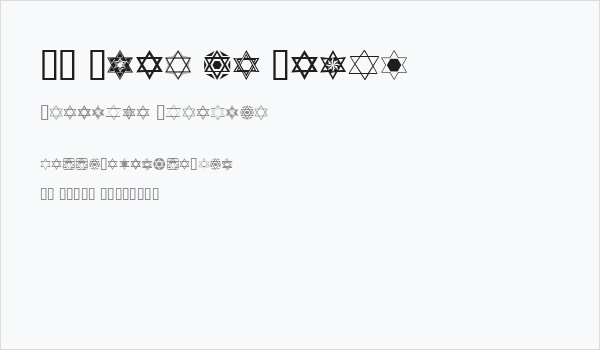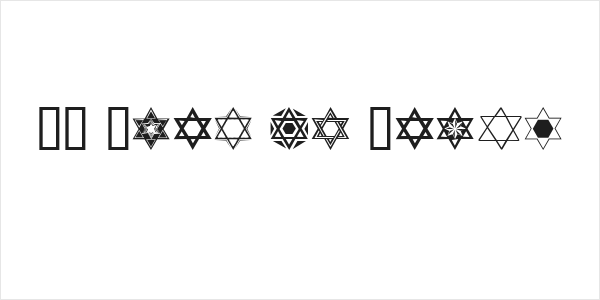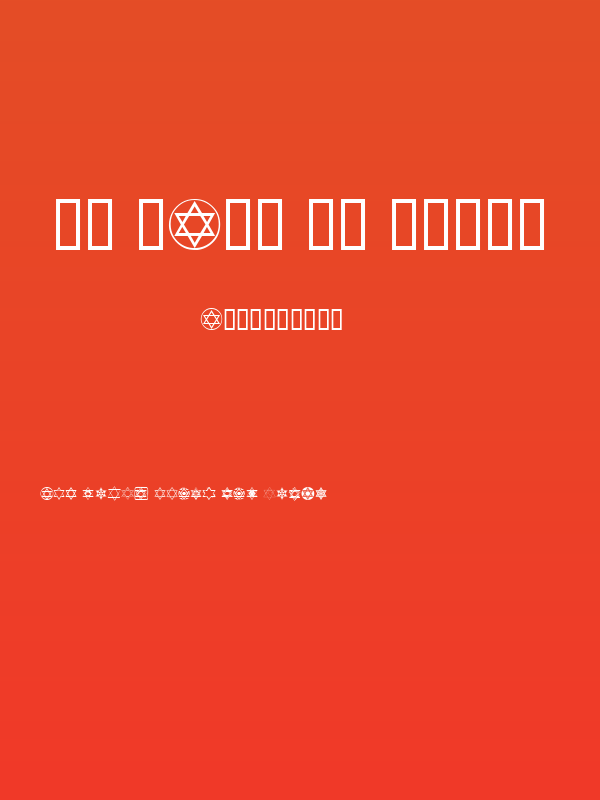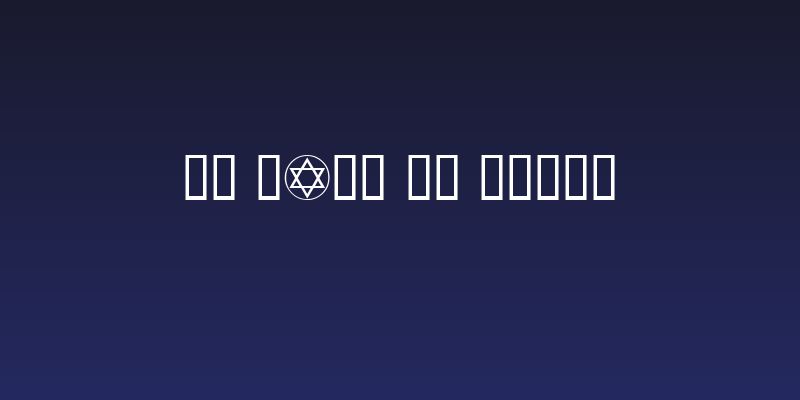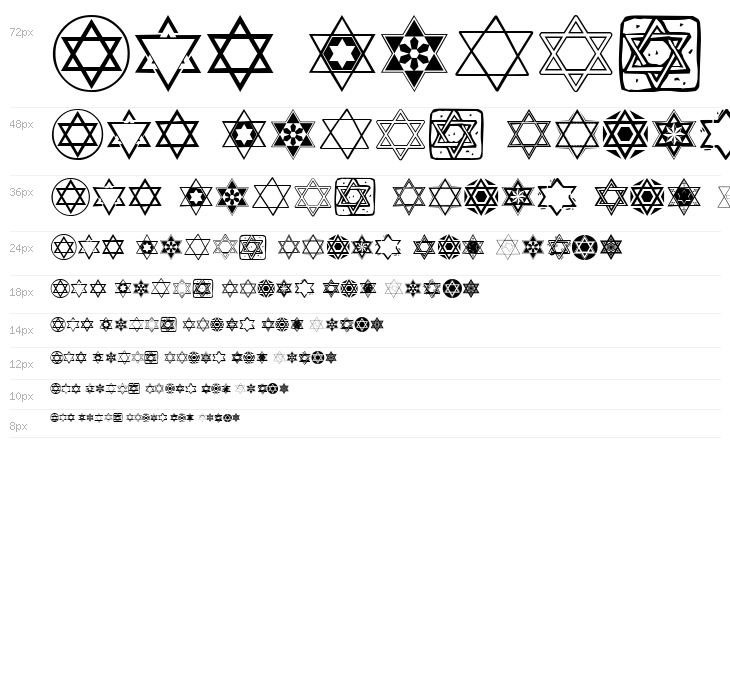
SL Star of David Font
SL Star of David Description
A decorative dingbat font featuring a variety of Star of David symbols in different styles, including outlined, filled, geometric, and embellished versions. The glyphs are primarily symbolic and ornamental rather than alphanumeric.
| Overall Style | Decorative, Symbolic |
| Use Case | Icons, Borders, Thematic graphics |
| Proposed Projects | Religious materials, event invitations, cultural graphics, decorative borders, educational resources. |